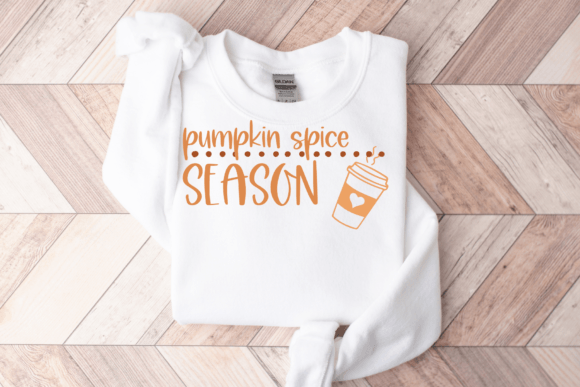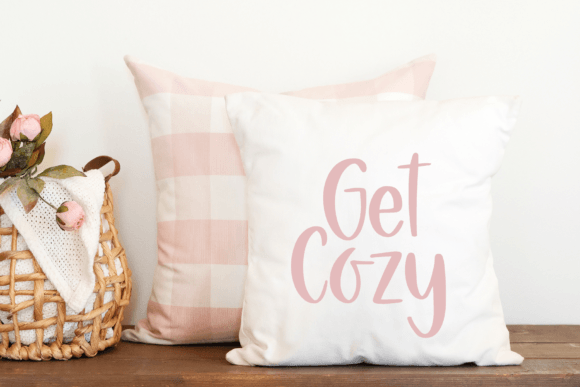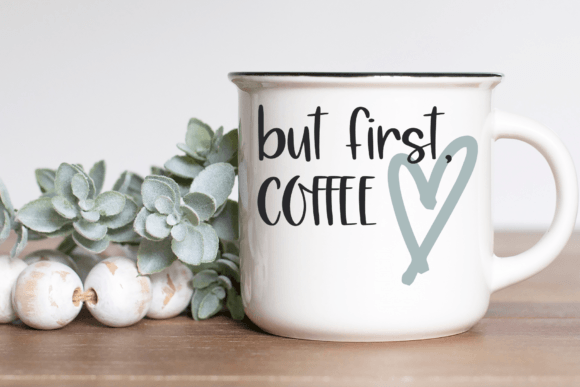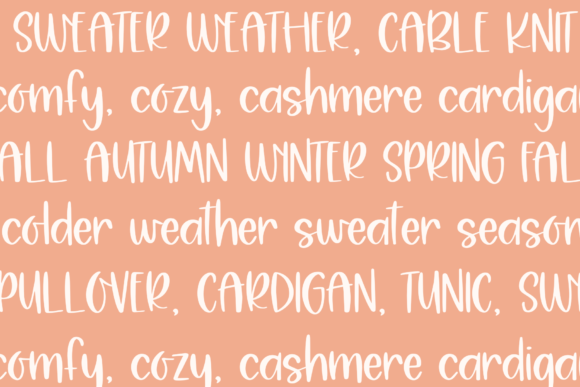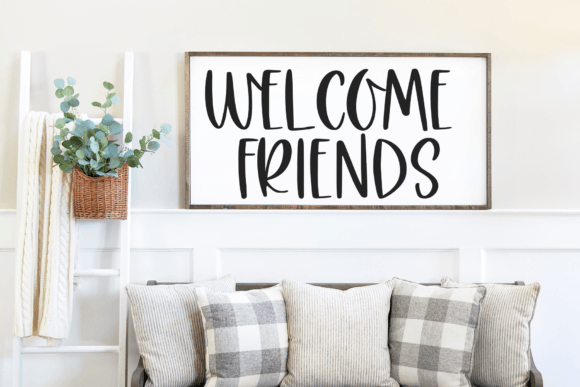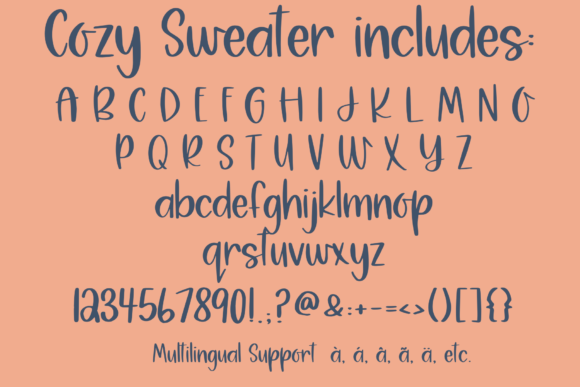
Cozy Sweater Font: The Perfect Companion for Your Creative Projects
Are you on the hunt for a font that exudes warmth, comfort, and a dash of playfulness? Look no further than the Cozy Sweater font! This delightful, handwritten sans-serif font is designed to bring a smile to your face and a touch of personality to your designs. In this article, we’ll dive into the wonderful world of Cozy Sweater, exploring its features, uses, and benefits for designers, crafters, and anyone looking to add a bit of whimsy to their projects.
What is Cozy Sweater Font?
Cozy Sweater is a fun, bouncy handwritten sans-serif font that’s perfect for a wide range of creative applications. Its carefree, energetic vibe makes it an excellent choice for designs that require a personal touch. Whether you’re working on a logo, greeting card, t-shirt design, sticker, or social media post, Cozy Sweater is sure to bring a sense of joy and approachability to your work.
Key Features of Cozy Sweater Font
- Handwritten sans-serif design: Cozy Sweater boasts a charming, handwritten aesthetic without the fuss of serifs, making it versatile and easy to read.
- Fun and bouncy feel: This font’s playful energy is infectious, adding a lighthearted touch to any design.
- Highly legible: Despite its casual appearance, Cozy Sweater remains clear and easy to read, even at smaller sizes.
- Extensive character set: With a wide range of characters, Cozy Sweater is suitable for a variety of languages and design applications.
Uses for Cozy Sweater Font
The versatility of Cozy Sweater font is one of its standout features. Here are just a few ideas to get you started:
- Fun logos and branding: Create a memorable and approachable brand identity with Cozy Sweater.
- Greeting cards and invitations: Add a personal touch to your stationery designs with this charming font.
- T-shirt designs and apparel: Cozy Sweater is perfect for creating eye-catching and comfortable-looking designs for clothing and accessories.
- Stickers and labels: Use Cozy Sweater to add a playful touch to your stickers, labels, and other small design elements.
- Social media graphics: Bring your social media posts to life with Cozy Sweater’s fun and engaging style.
- Craft projects and DIY: Whether you’re working on a quilt, scrapbook, or other craft project, Cozy Sweater is a great choice for adding a personal touch.
So, what makes Cozy Sweater font an excellent choice for designers and crafters? Here are a few benefits to consider:
- Customizable: Experiment with different colors, sizes, and styles to make Cozy Sweater your own.
- Time-saving: With Cozy Sweater, you can create professional-looking designs in no time, perfect for meeting tight deadlines.
- Unique and creative: Stand out from the crowd with Cozy Sweater’s distinctive, hand-crafted aesthetic.
In conclusion, Cozy Sweater font is a delightful, versatile, and highly usable font that’s perfect for a wide range of creative projects. Its fun, bouncy feel and handwritten sans-serif design make it an excellent choice for designers, crafters, and anyone looking to add a touch of personality to their work. Whether you’re creating logos, greeting cards, t-shirt designs, or social media graphics, Cozy Sweater is sure to bring a smile to your face and a dash of whimsy to your designs.